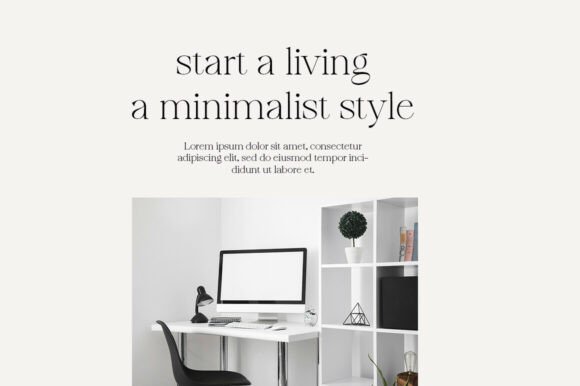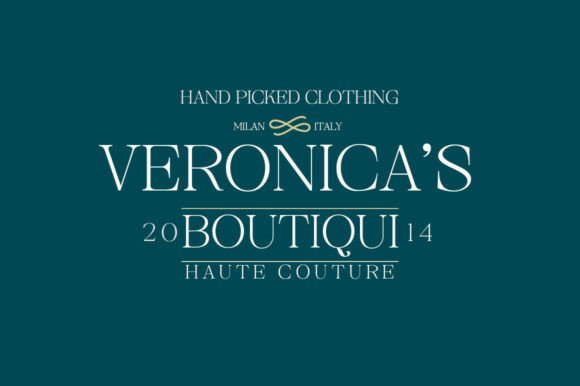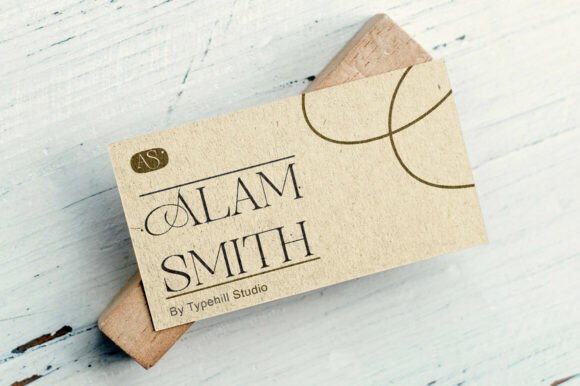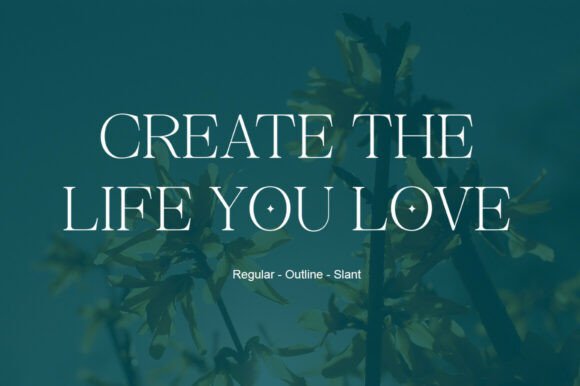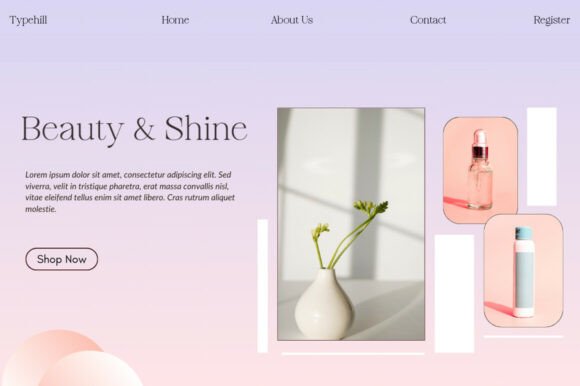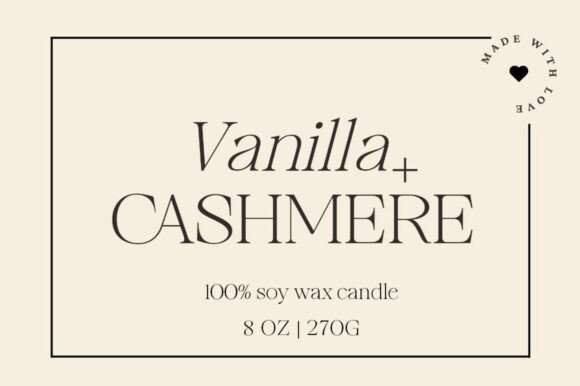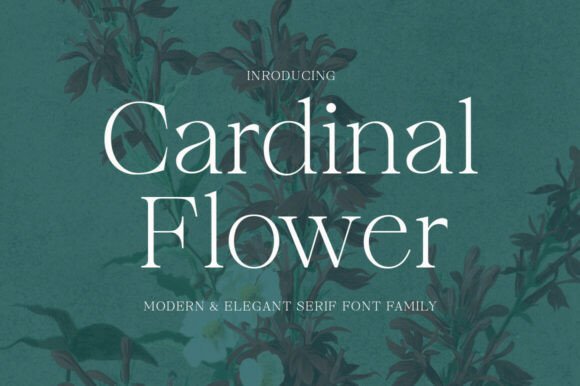
Discover the Elegance of Cardinal Flower Font
Are you a designer or crafter looking for a typeface that exudes subtlety, cleanliness, and femininity? Look no further than the Cardinal Flower Font. This classic serif typeface is perfect for a variety of formal applications, from elegant invitations to stylish packaging. In this article, we’ll explore the features and benefits of Cardinal Flower Font, and why it’s a must-have for any design enthusiast.
Aesthetic Appeal
Cardinal Flower Font boasts a strong neoclassical serif design, characterized by high contrast and a unique look. The typeface features a subtle, clean, and feminine aesthetic that is both sensual and glamorous. The classic style is reminiscent of traditional serif fonts, yet with a modern twist that makes it perfect for contemporary designs. The font’s readability is exceptional, making it suitable for body text, headings, and titles.
Versatility
One of the standout features of Cardinal Flower Font is its versatility. The typeface can be applied to a wide range of design projects, including:
• Invitations: weddings, formal events, and parties
• Labels: product labels, packaging labels, and address labels
• Menus: restaurant menus, cafe menus, and food packaging
• Logos: fashion brands, beauty brands, and luxury goods
• Fashion: fashion magazines, fashion blogs, and fashion labels
• Makeup: beauty packaging, makeup tutorials, and skincare branding
• Stationery: letterheads, notebooks, and journals
• Letterpress: elegant letterpress designs and art prints
• Romantic novels: book covers, e-book designs, and author branding
• Magazines: fashion magazines, lifestyle magazines, and entertainment publications
• Books: fiction books, non-fiction books, and children’s books
• Greeting/wedding cards: elegant card designs and invitations
• Packaging: product packaging, food packaging, and cosmetic packaging
Cardinal Flower Font comes with a range of features that make it an attractive choice for designers and crafters. Some of the key features include:
• Alternative fonts: The typeface features alternative fonts, allowing you to experiment with different styles and variations.
• Ligatures: Cardinal Flower Font supports ligatures, providing a more natural and fluid reading experience.
• Multilingual support: The font supports multiple languages, making it perfect for international designs and projects.
• High contrast: The typeface features high contrast, creating a visually appealing and elegant look.
• Cool and stylish: Cardinal Flower Font has a cool and stylish aesthetic that is sure to impress.
• Unique look: The font’s unique look sets it apart from other serif typefaces, making it perfect for designers who want to create something distinctive.
Why Choose Cardinal Flower Font?
With so many typefaces available, why choose Cardinal Flower Font? Here are just a few reasons why this font stands out:
• Elegance: Cardinal Flower Font exudes elegance and sophistication, making it perfect for formal designs and projects.
• Readability: The font’s readability is exceptional, making it suitable for body text and headings.
• Versatility: Cardinal Flower Font can be applied to a wide range of design projects, from invitations to packaging.
• Unique features: The font’s alternative fonts, ligatures, and multilingual support make it a standout choice for designers.
In conclusion, Cardinal Flower Font is a versatile and elegant typeface that is perfect for designers and crafters looking for a sophisticated serif font. With its high contrast, unique look, and range of features, this font is sure to impress. Whether you’re designing invitations, packaging, or editorial content, Cardinal Flower Font is a must-have for any design enthusiast.